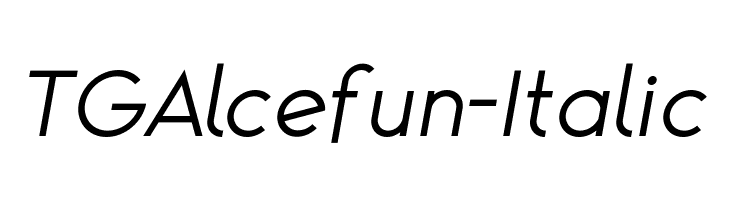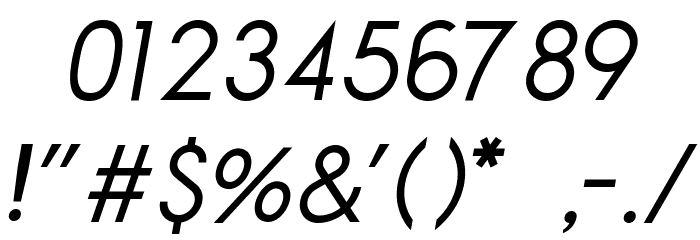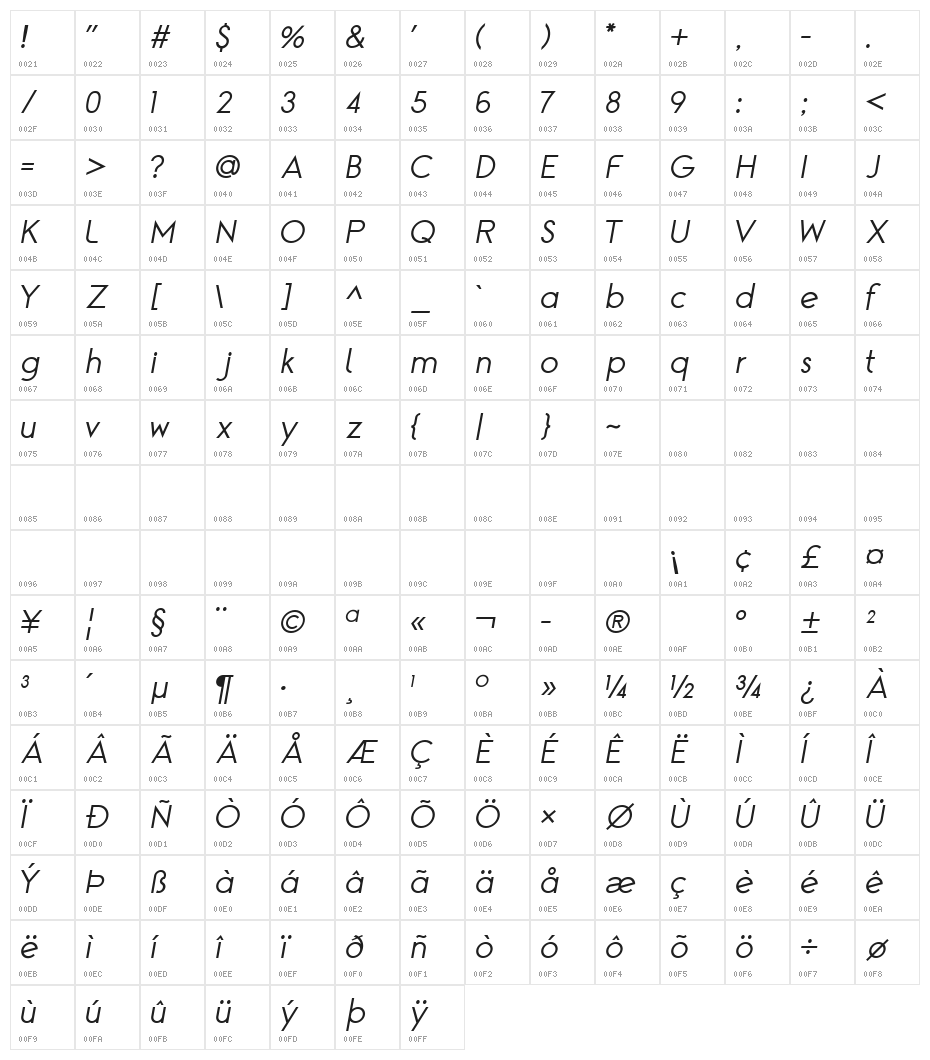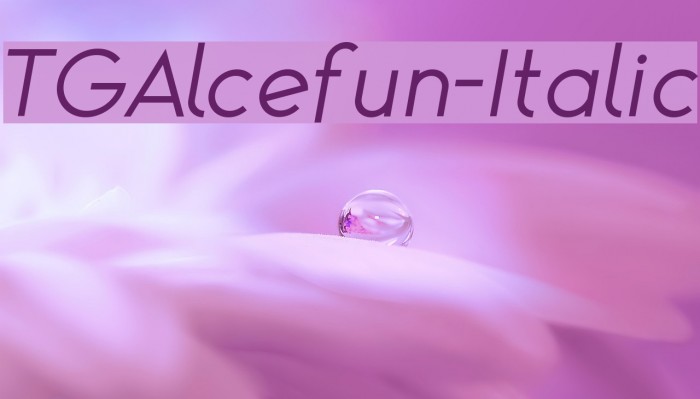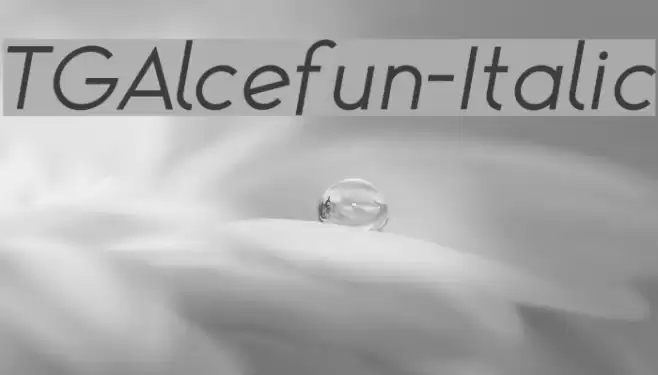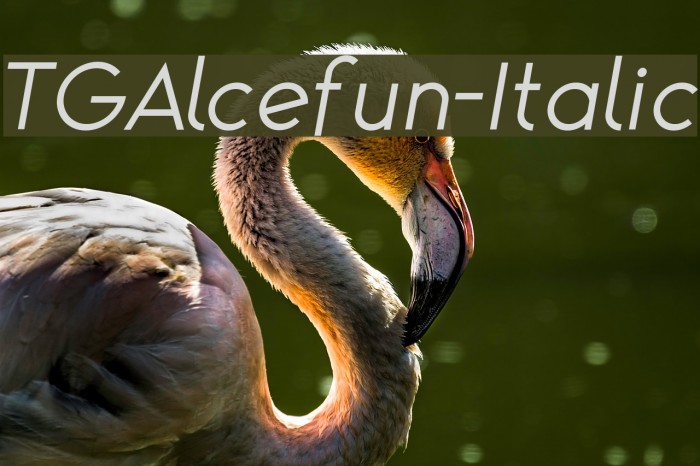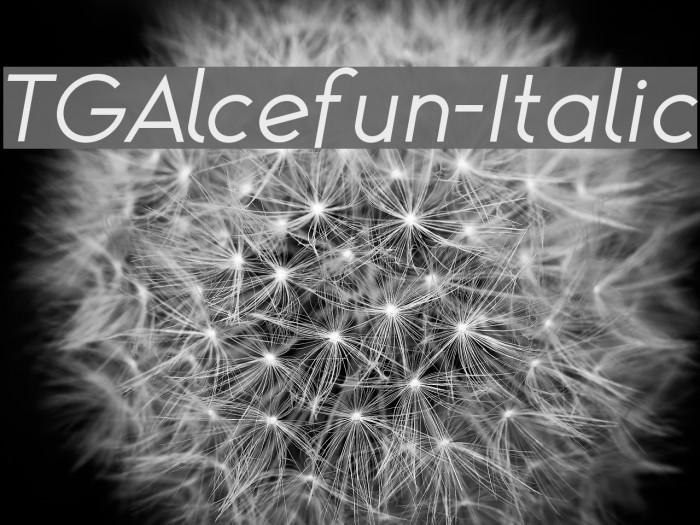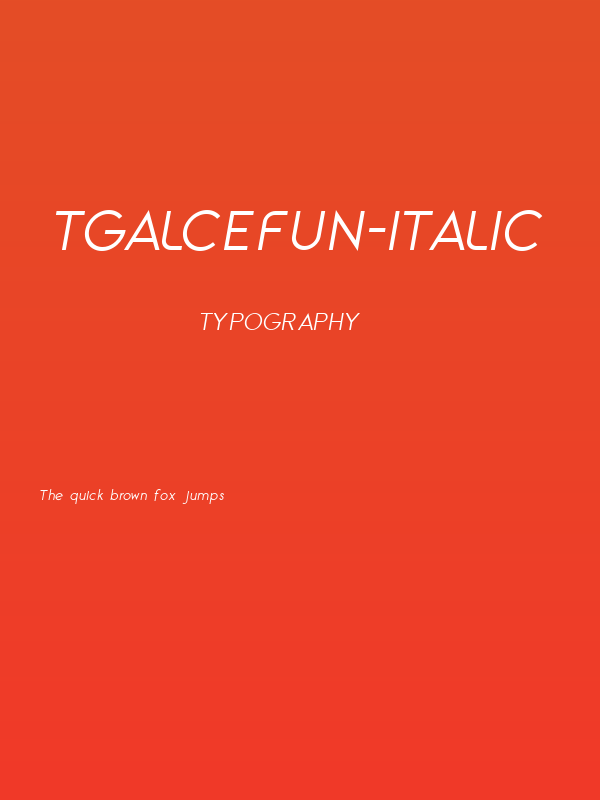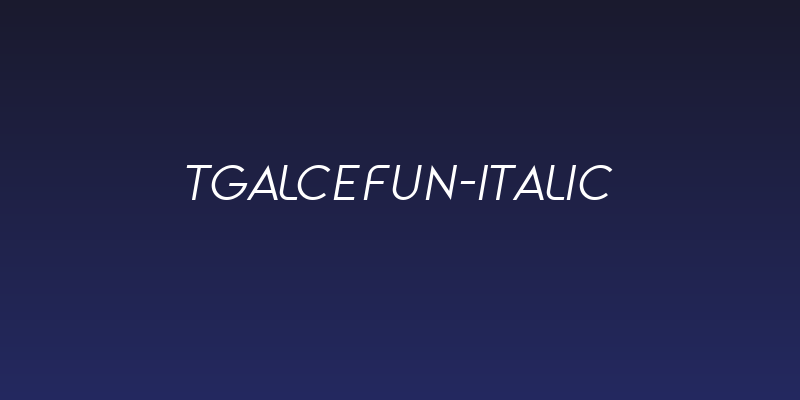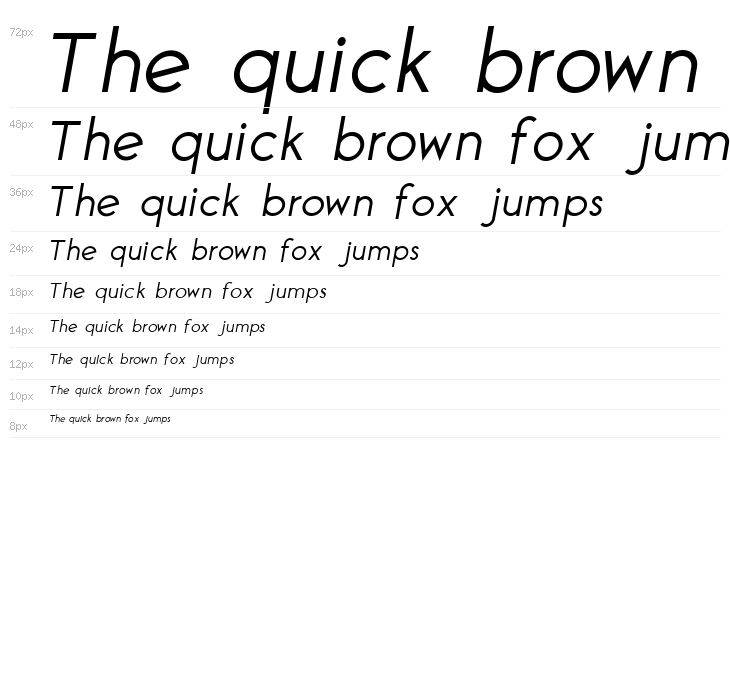
TGAlcefun-Italic Font
TGAlcefun-Italic Description
This font features a sleek and modern design with a slight italic slant, giving it a dynamic and elegant appearance. The characters are well-proportioned with a consistent stroke width, contributing to its clean and professional look. The uppercase letters are tall and commanding, while the lowercase letters maintain a harmonious balance. The numerals are clear and easily distinguishable, making them suitable for both text and numerical data. The special characters are designed with the same attention to detail, ensuring uniformity across the font. Overall, this font exudes a sense of sophistication and contemporary style.
| Proposed Projects | Ideal for branding, editorial design, advertising, and digital content where a modern and professional appearance is desired. |